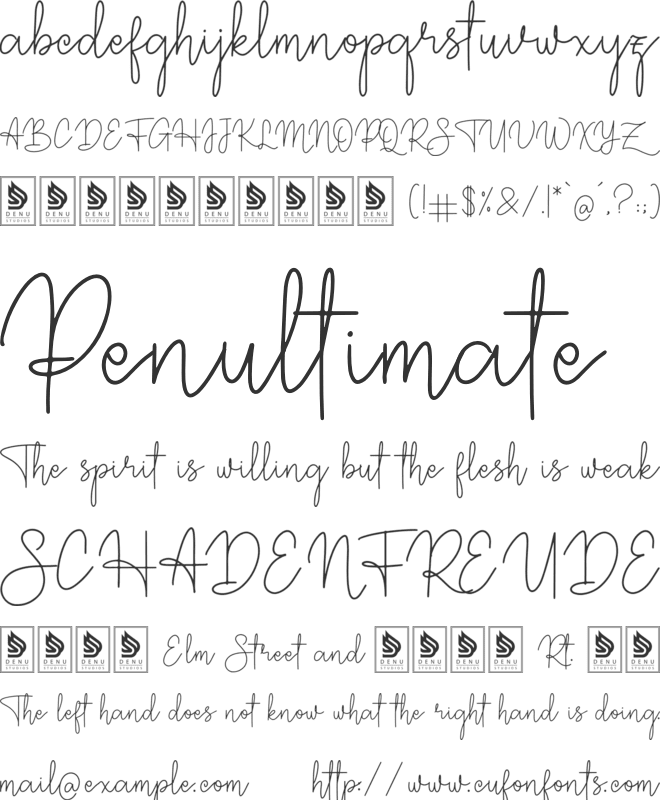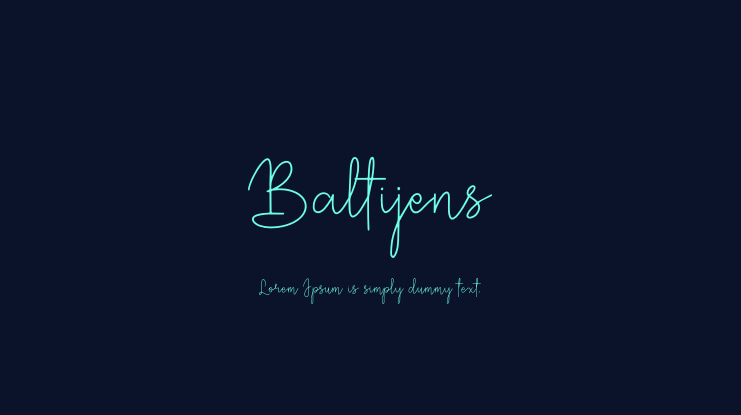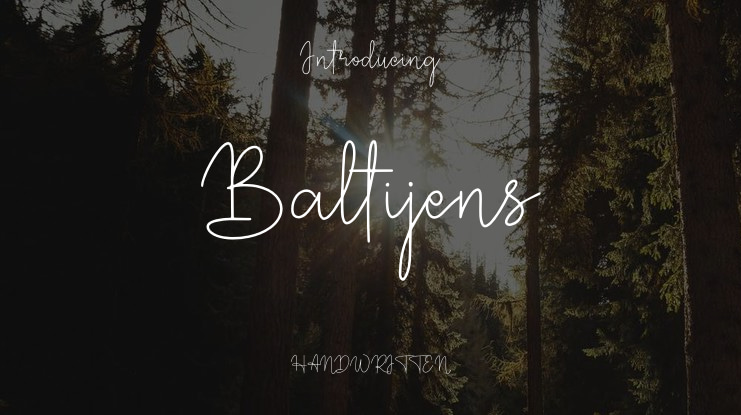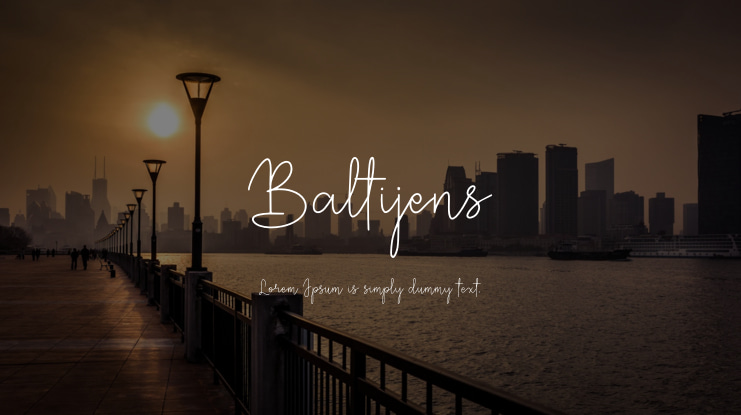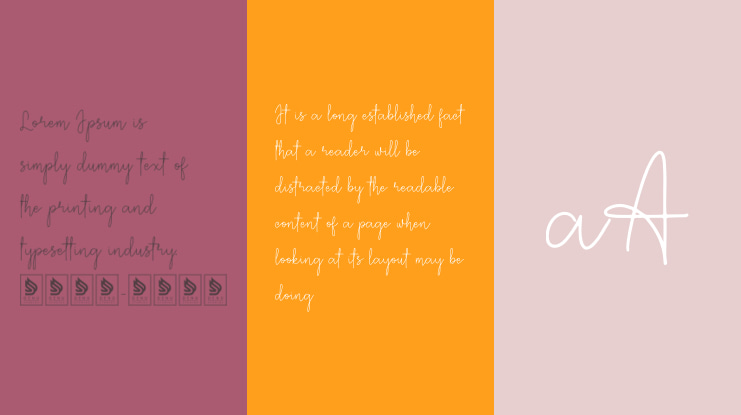
Baltijens Font
Baltijens | Stylish Handwritten
Perfect for any project including logos, branding, homeware designs, product packaging, mugs, quotes, posters, shopping bags, t-shirts, book covers, name cards, invitations, greeting cards, labels, photography, watermarks, special events, and all your other projects that need a stylish handwritten touch.